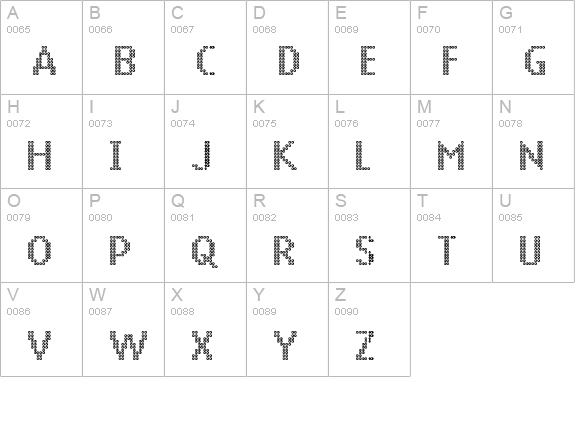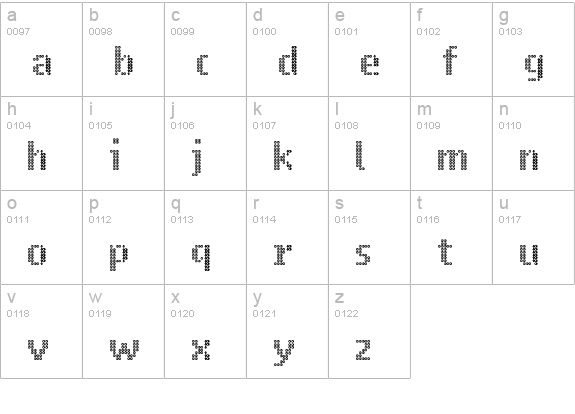
Ring Matrix is a futuristic font that embodies the essence of technology and innovation. With its sleek and clean design, this font is perfect for any project that requires a modern and cutting-edge look. The letters of Ring Matrix are carefully crafted to resemble a grid, giving it a unique and eye-catching appearance. Each character is meticulously designed to create a sense of balance and harmony, resulting in a font that is both visually appealing and easy to read. Ring Matrix is not only visually striking, but it is also incredibly versatile. Whether you're designing a logo, creating a website, or working on a print project, this font will effortlessly elevate your design to the next level. What sets Ring Matrix apart from other fonts is that it is freely available to download at FontsMarket.com. This means that you can easily access this font without any hassle or cost. Whether you're a professional designer or just starting out, having access to high-quality fonts like Ring Matrix can make a world of difference in your creative endeavors. So why wait? Download Ring Matrix now and see how it can transform your designs. Whether you're aiming for a futuristic look or simply want to add a touch of modernity to your project, Ring Matrix is the perfect font for the job. Get ready to impress with this captivating and freely available font.